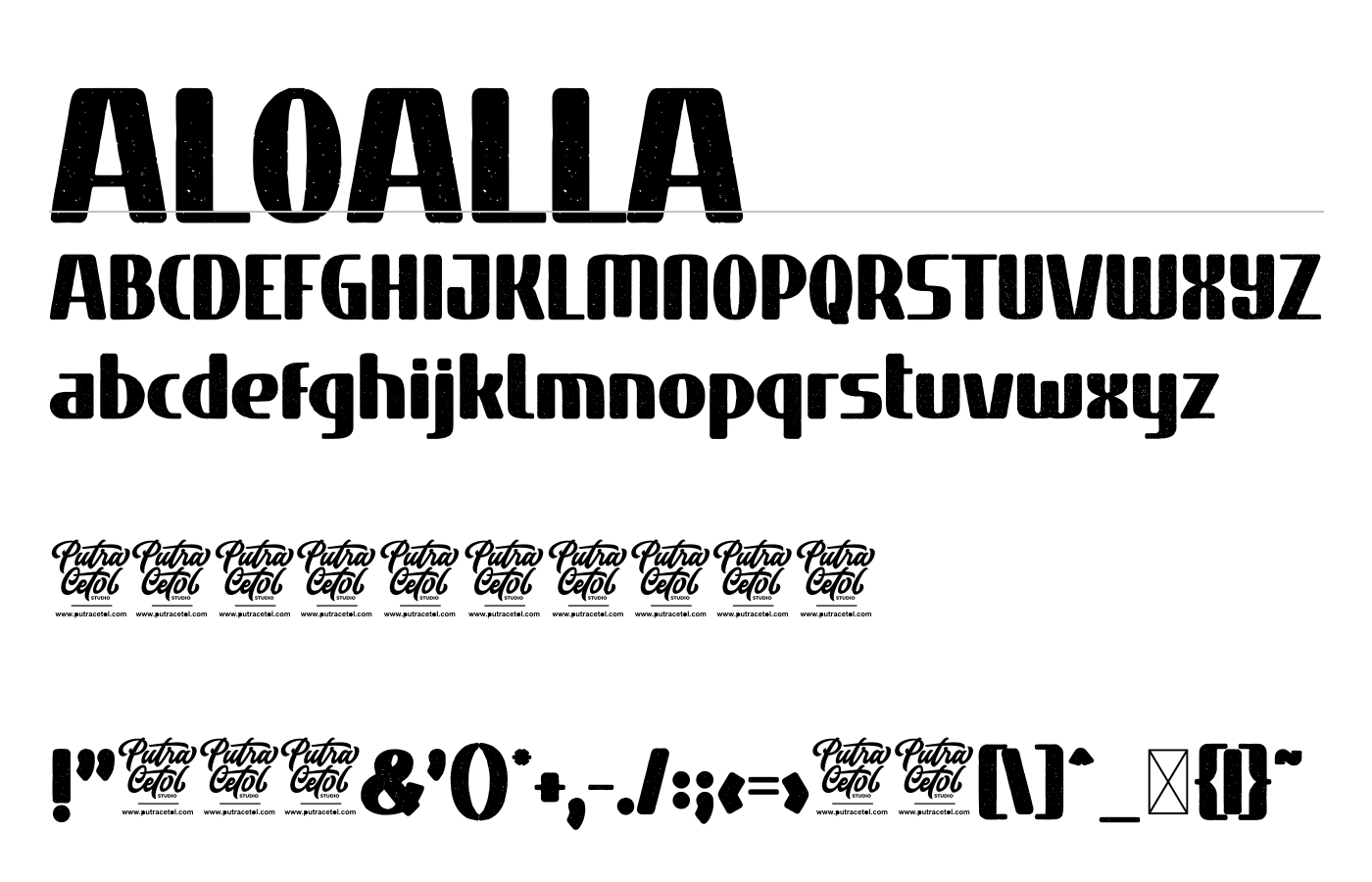
ALOALLA is a bold, condensed sans serif font with strong geometric shapes and a slightly rugged texture that adds character. Its tall, uniform letters feature subtle rounded corners and sturdy strokes, making it feel modern yet approachable, well-suited for bold headlines and branding that demands impact and personality. This font works beautifully in logos, posters, and editorial designs where a confident, urban vibe is desired.
ALOALLA Font
About ALOALLA Font